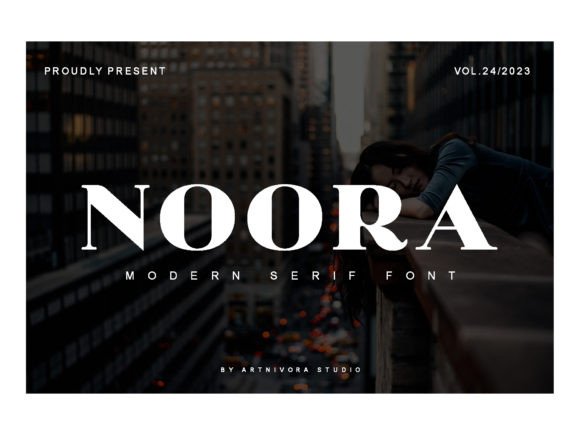
Experience the beauty and sophistication of Noora, the ultimate serif font designed to elevate your creative projects to new heights. Crafted by the talented team at artnivora.std, Noora is the epitome of timeless elegance and versatility.
Noora is the best font for landscape design, providing a stunning visual impact that captures the essence of nature's beauty. Its sleek and refined lines pay homage to the graceful curves found in the natural world, making it the perfect choice for any project related to landscaping, gardening, or outdoor aesthetics.
With Noora, your logo designs will exude professionalism and sophistication. Its classic serif style adds a touch of elegance and authority, making your brand stand out from the competition. Whether you're creating a logo for a luxury brand, a boutique hotel, or a high-end restaurant, Noora will effortlessly convey your brand's message and values.
Magazines come to life with Noora. Its clean and legible characters make reading a pleasure, while its subtle serifs lend a touch of sophistication to every page. Captivate your readers with a font that combines readability and style, allowing your content to shine and leaving a lasting impression.
In the fast-paced world of social media, Noora is the font that will make your posts pop. Its simple yet impactful design ensures that your message is conveyed with clarity and elegance. Whether you're creating Instagram quotes, Facebook banners, or Twitter headers, Noora's versatility will make your content stand out in the crowded digital landscape.
Brochures become works of art with Noora. Its refined and elegant appearance instantly captivates readers, making them eager to explore the contents within. From travel brochures to product catalogs, Noora adds a touch of sophistication that will leave a lasting impression on your audience.
Noora is more than just a font; it's a tool that empowers you to unleash your creativity and captivate your audience. With its extensive range of applications, Noora truly is the ultimate serif font for all your design needs.